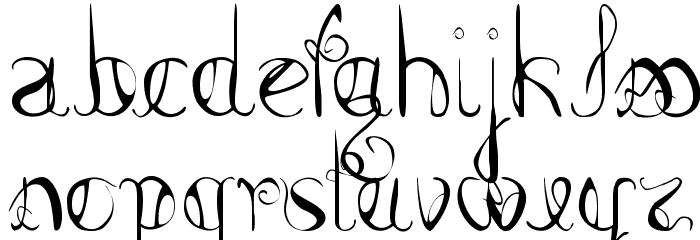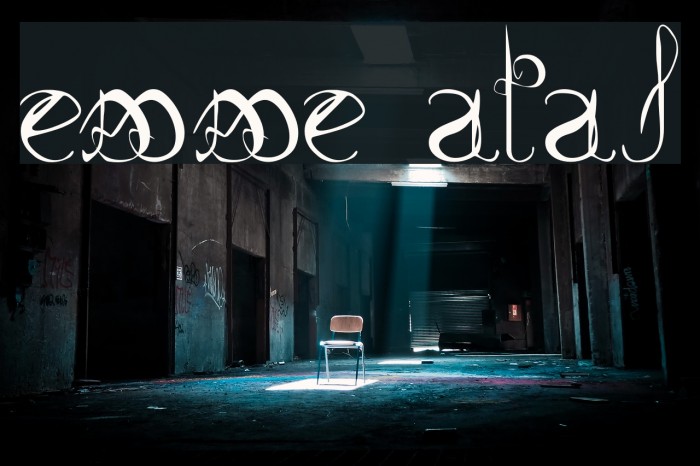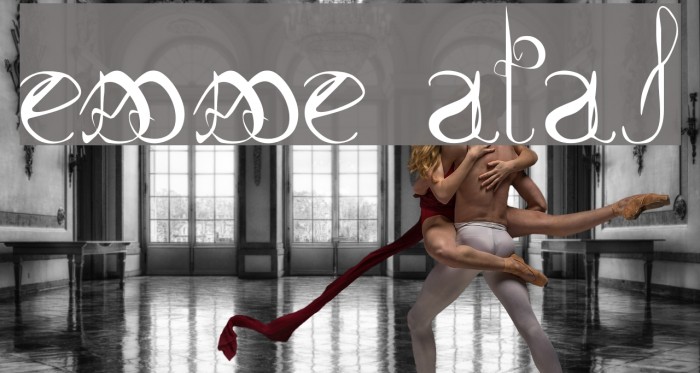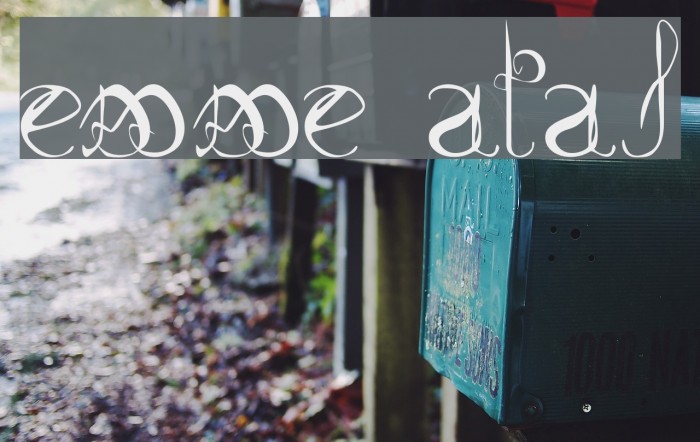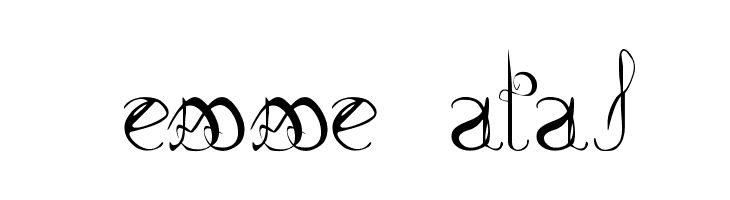
Femme Fatal Font
This font features a highly decorative and artistic style, characterized by its intricate curves and flourishes. The letters exhibit a unique blend of elegance and complexity, with each character displaying a distinct personality. The strokes are varied, with some parts being thin and delicate, while others are bold and pronounced, creating a dynamic visual contrast. This font is reminiscent of calligraphic styles, yet it maintains a modern flair through its innovative design elements. The overall appearance is both sophisticated and whimsical, making it suitable for creative and expressive projects.
A decorative and artistic font with intricate curves and flourishes.
- Proposed Projects: Ideal for invitations, artistic posters, branding for luxury products, and creative editorial design.
- Use Case: Logos, Invitations, Artistic Posters